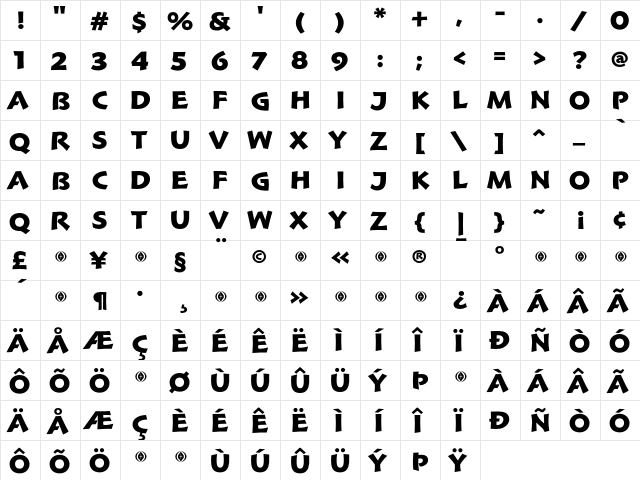
Hoffmann BlackTitling
Design Context for Hoffmann Typeface
Hoffmann offers clean, dependable letterforms without strong stylistic allegiance, making it a practical choice for designers who need flexibility.
Pro Tip: Pair Hoffmann with a font of contrasting weight or personality to build a more expressive typographic hierarchy.